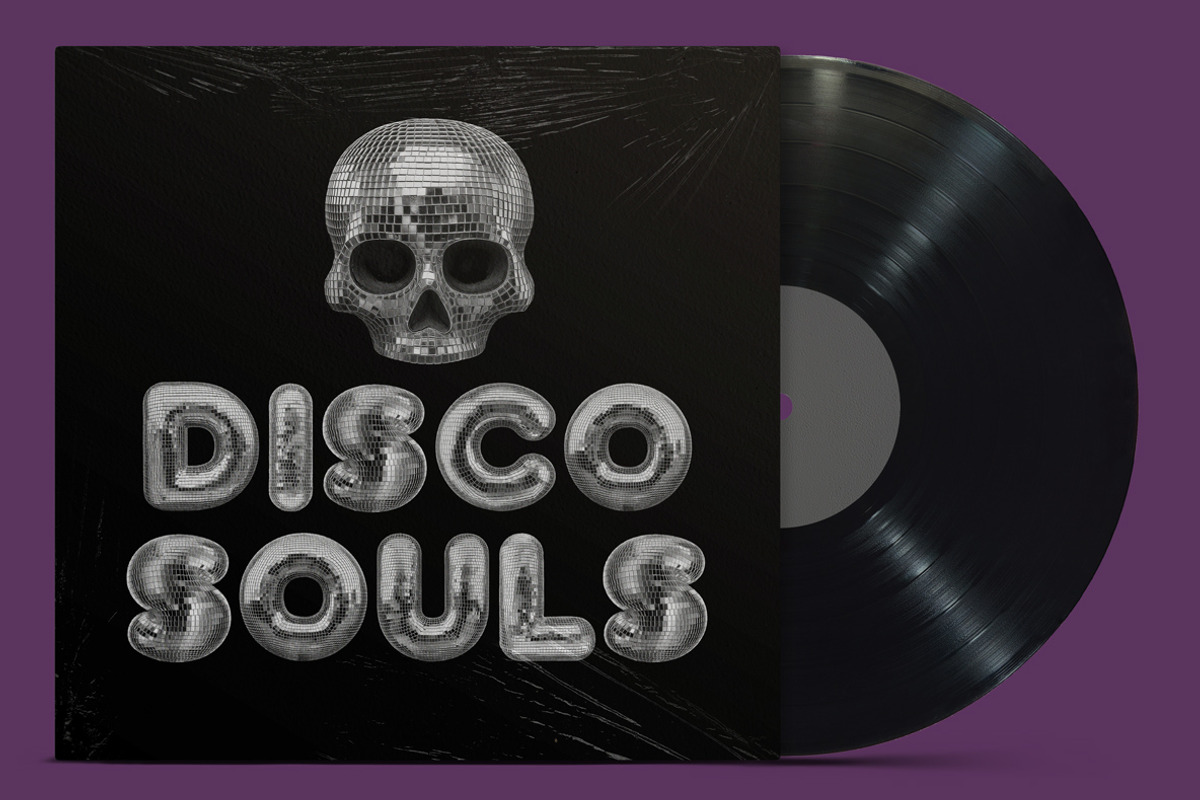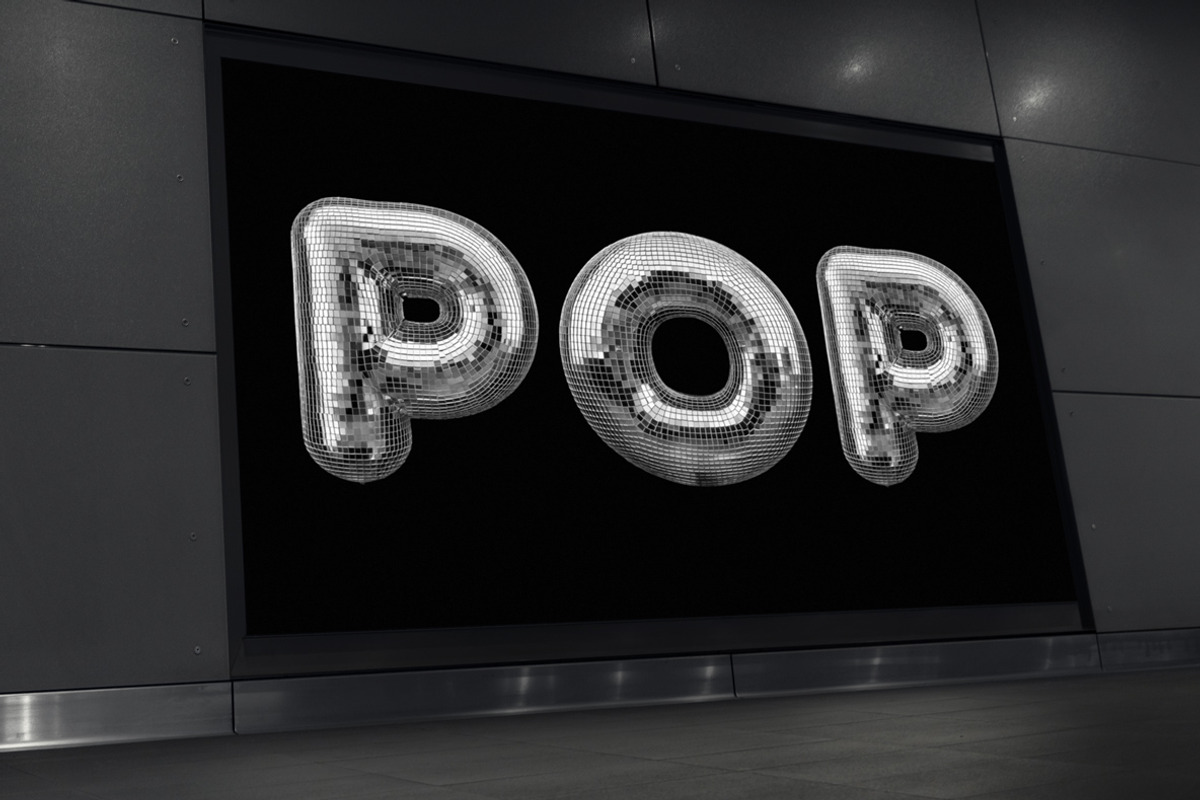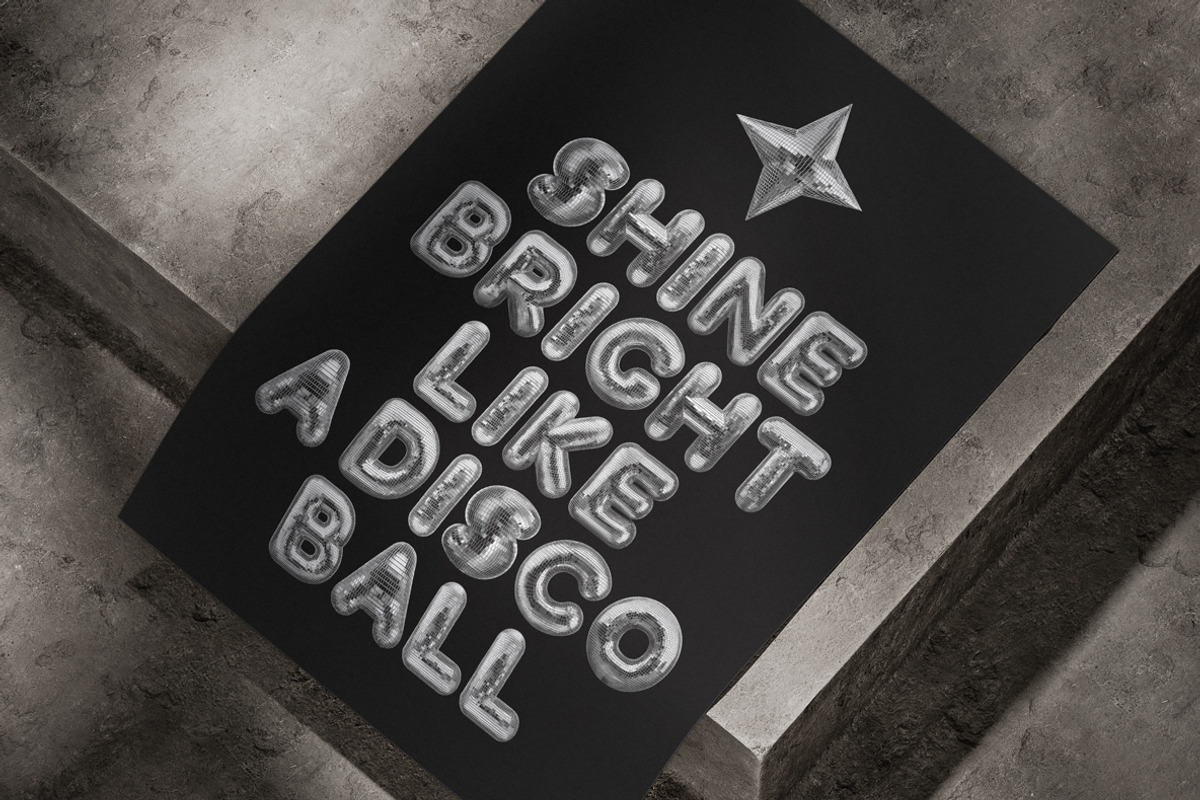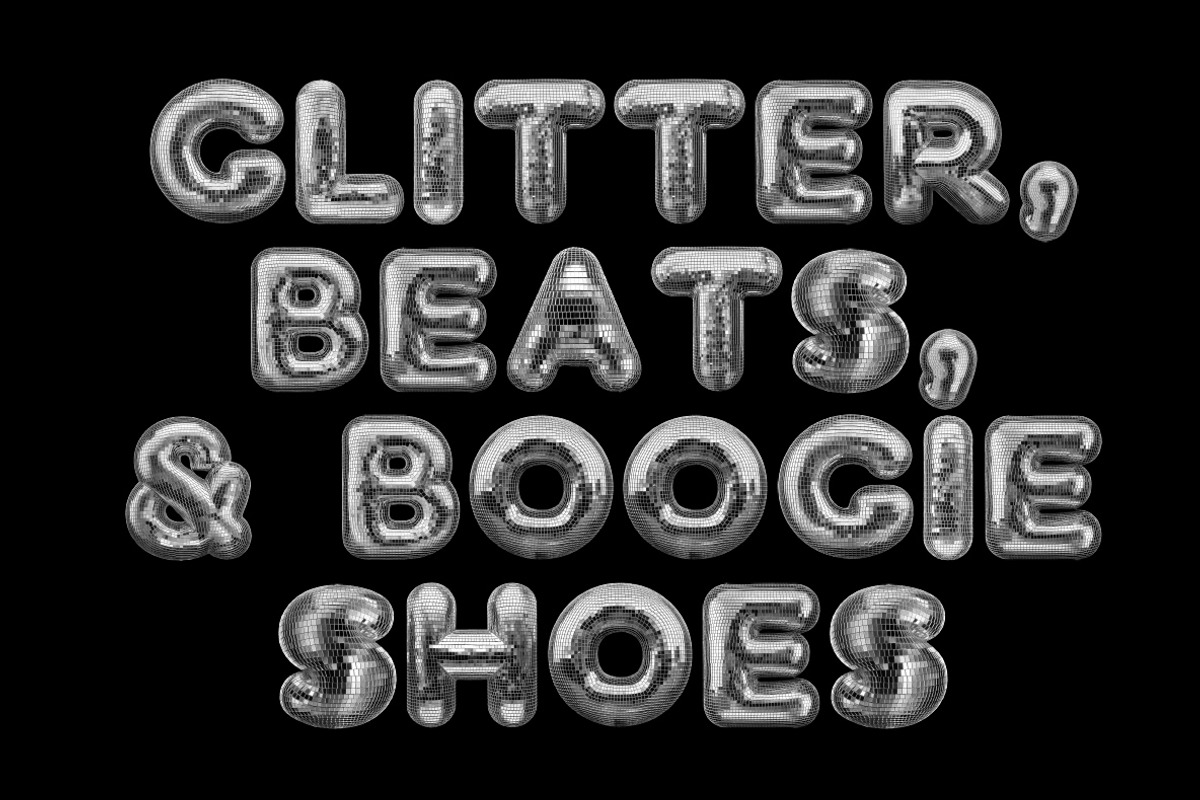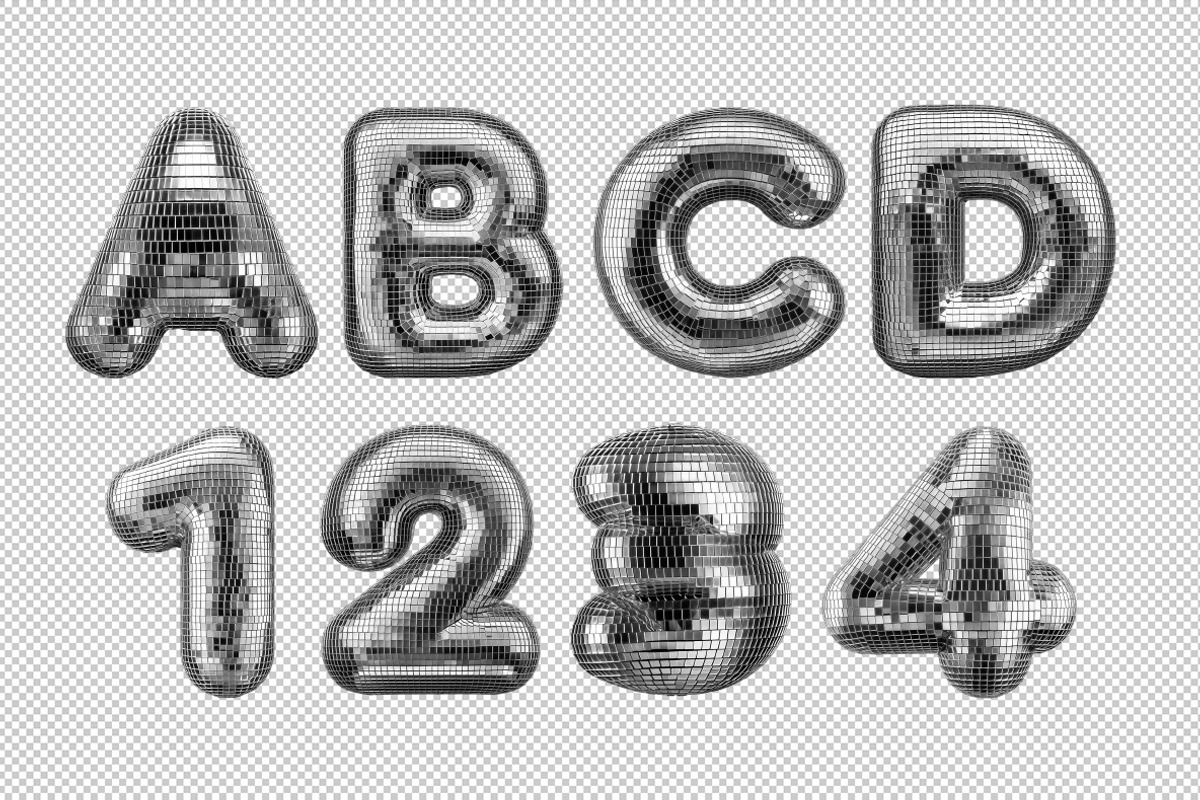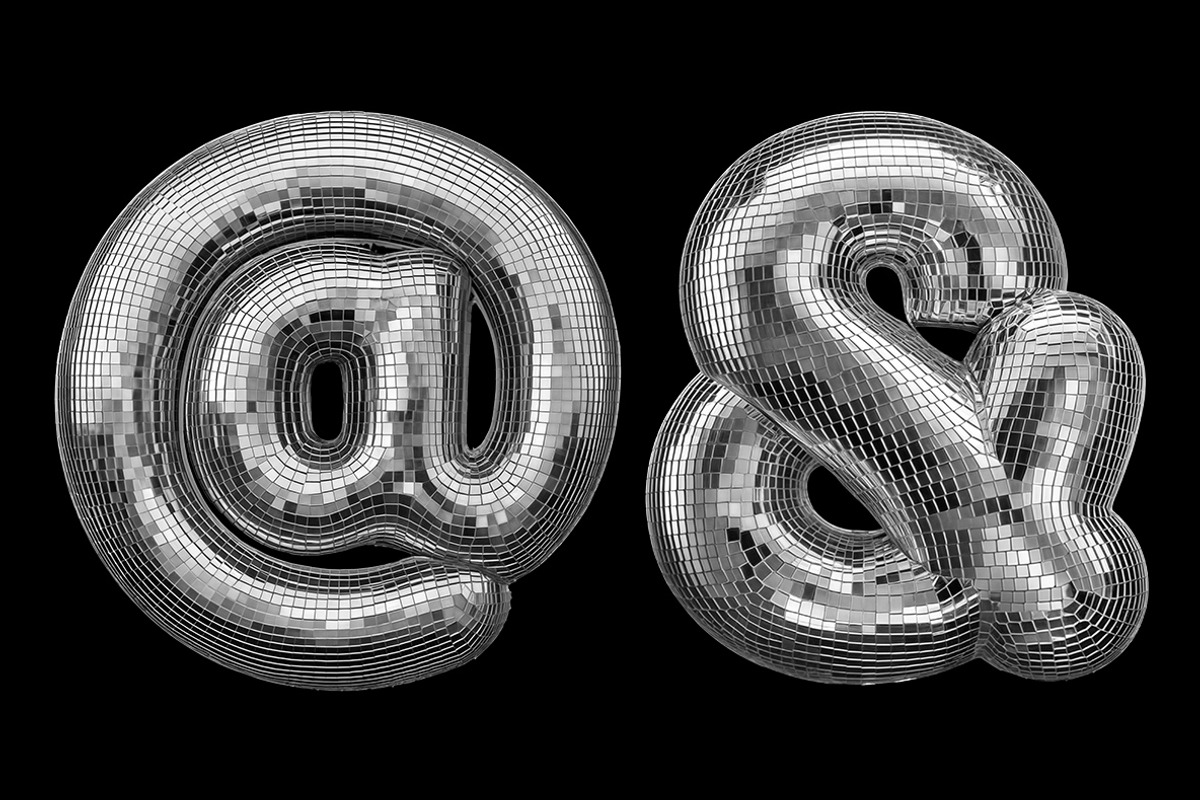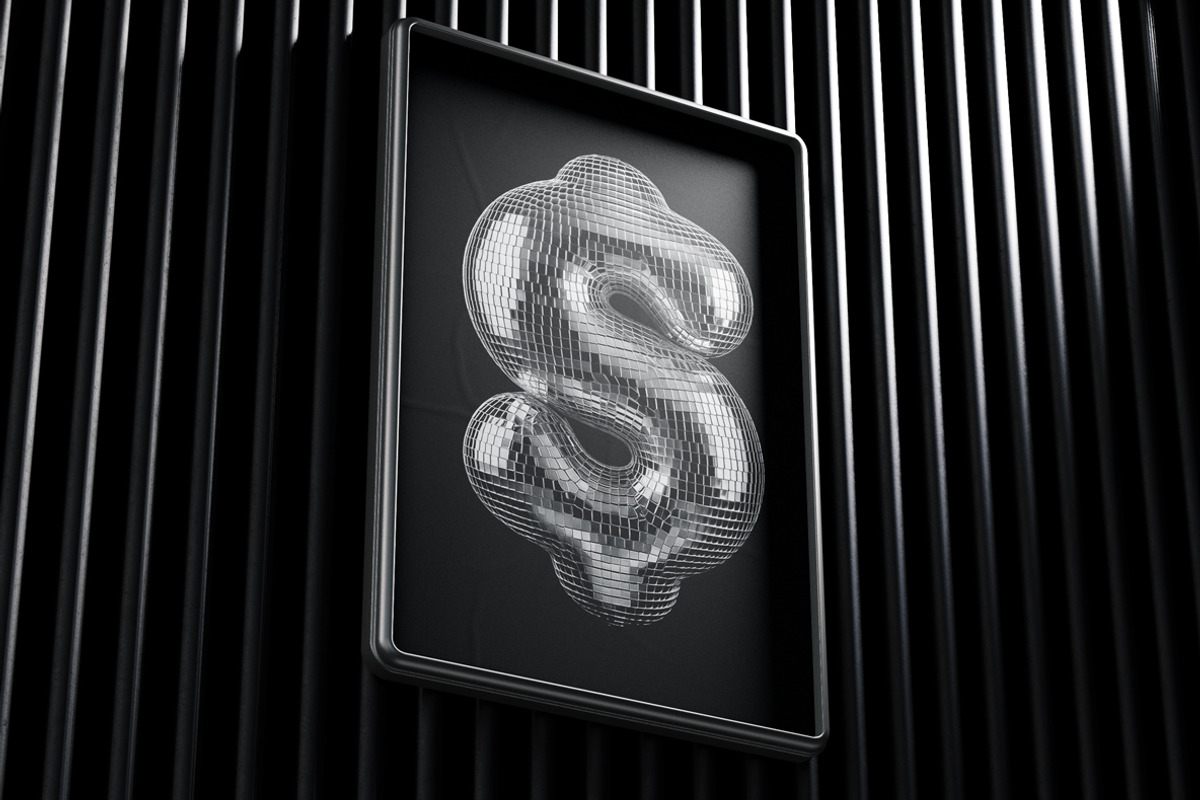
Disco-Spark Font
Meet Disco-Spark Font — the lovechild of Saturday Night Fever and your wildest design dreams. It's loud, it's proud, and it reflects light better than your ex at a therapy session. Each letter is a fully-sequined diva, dripping in glam and ready to boogie its curves across your screen. Forget minimalism — this font shows up late, steals the spotlight, and demands a dance-off. Ideal for disco parties, retro chaos, or when your typography needs to scream “I have arrived!” in silver stilettos. Side effects may include funky basslines, spontaneous glitter explosions, and questionable dance moves. Use with fabulous caution.
- Letters : A B C D E F G H I J K L M N O P Q R S T U V W X Y Z
- Numbers : 0 1 2 3 4 5 6 7 8 9
- Others : ! ? - . ' $ € % & # @